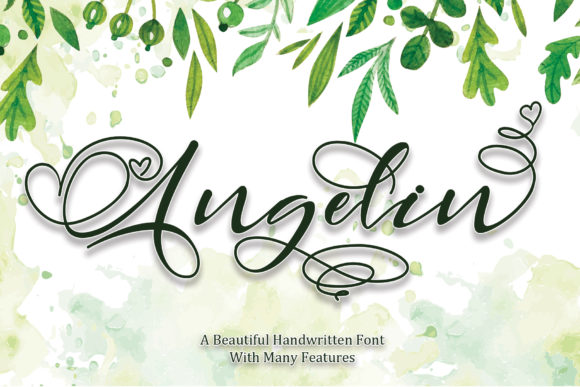
Dive into the realm of elegance and grace with Angelin Font, a breathtaking script font that will enchant your crafting endeavors with a touch of romance and allure. Crafted with meticulous care by the talented thomasaradea, this font embodies the essence of timeless beauty and sophistication.
Step into a world where your creative visions come to life, adorned with the mesmerizing flow of Angelin Font. Its graceful curves, delicate swirls, and enchanting swashes dance across your designs, captivating the eyes and igniting the imagination. Whether you're a seasoned designer seeking to elevate your projects or a beginner searching for a font that speaks to your creative soul, Angelin Font is your perfect companion.
With Angelin Font, the possibilities are endless. Its versatility shines in a myriad of applications, from wedding invitations and greeting cards to branding and social media graphics. Let your creativity soar as you explore the endless horizons of design, knowing that Angelin Font will effortlessly elevate your work to new heights of elegance and sophistication.
But it's not just about aesthetics; Angelin Font is also incredibly user-friendly. PUA encoding ensures seamless access to the font's entire repertoire of stunning glyphs and swashes, while a wealth of special features, including alternate glyphs and ligatures, empowers you with unparalleled creative control. Unleash your inner artist and let your imagination run wild as you craft designs that leave a lasting impression.
Don't settle for ordinary fonts that blend into the background. Embrace the extraordinary with Angelin Font and embark on a creative journey where beauty and elegance reign supreme. Let your designs blossom with a touch of romance and enchantment, and let Angelin Font guide you towards a world of creative fulfillment.